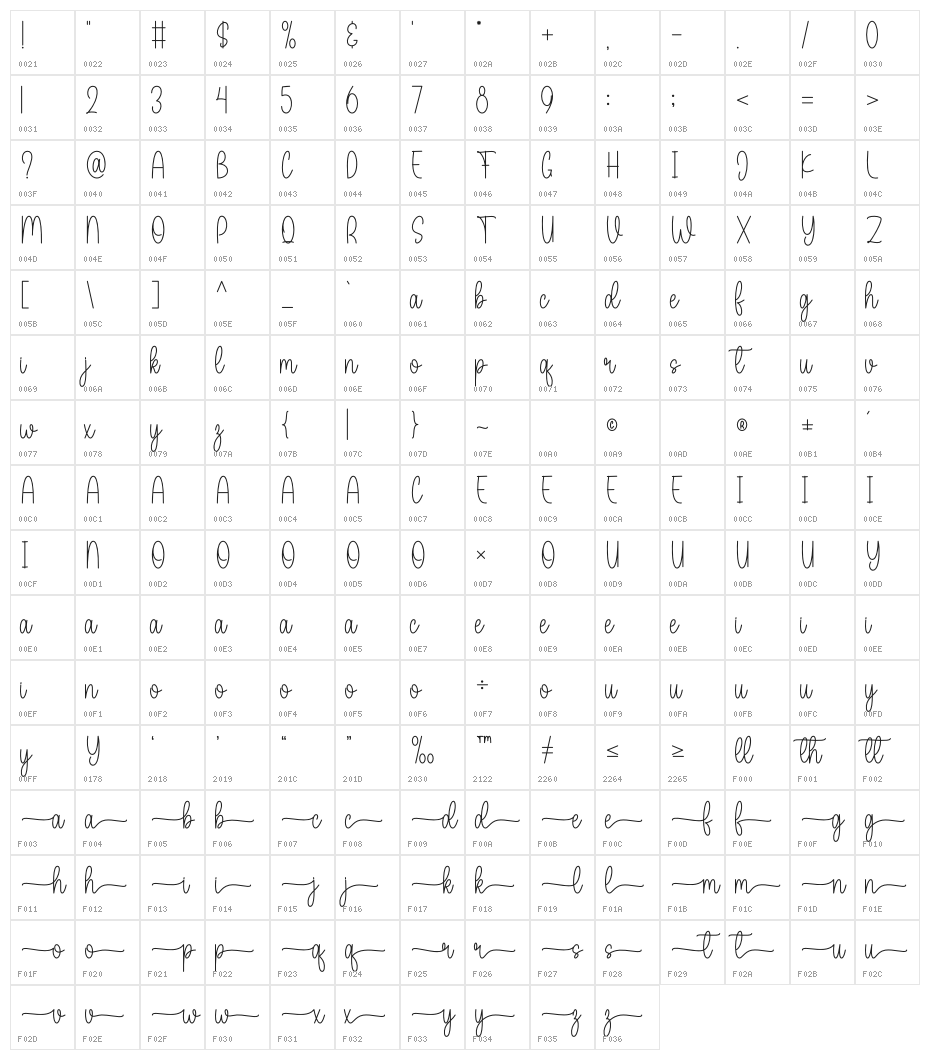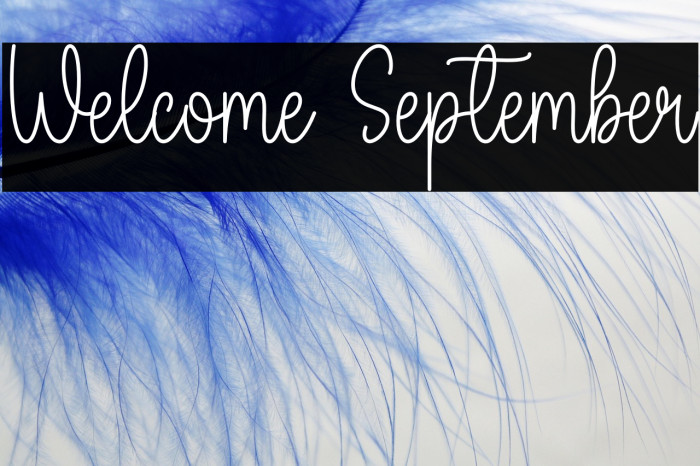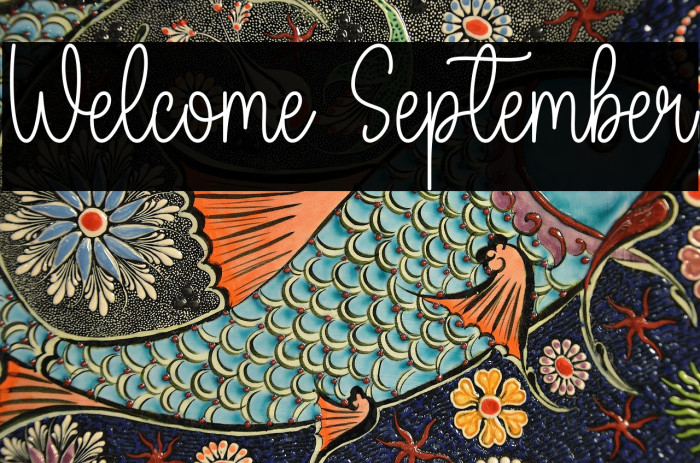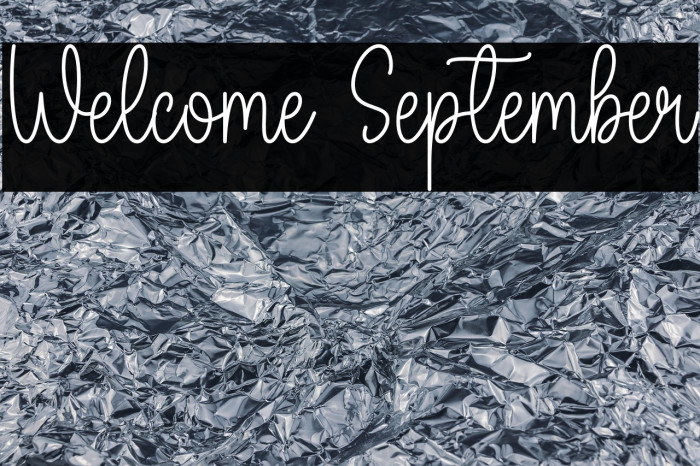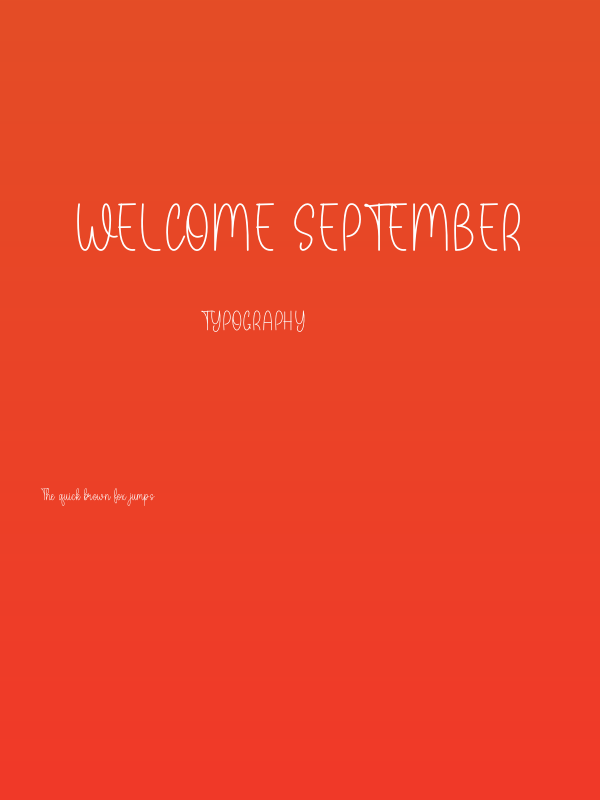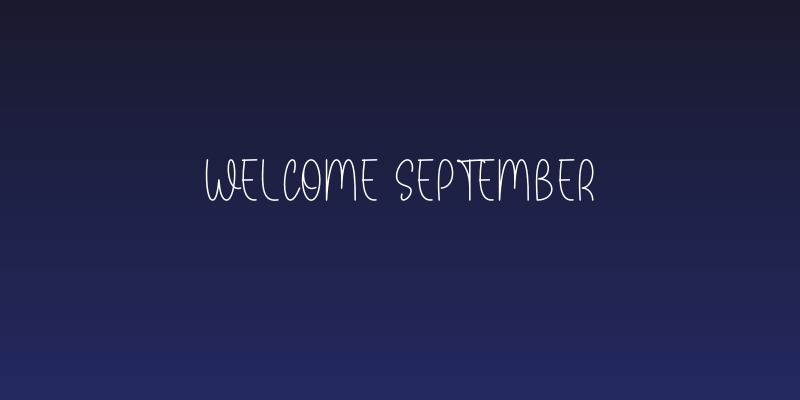
Welcome September Font
Welcome September Description
This font features a playful and whimsical handwritten style, characterized by its tall, narrow letters and smooth curves. The uppercase letters are elongated with a slight slant, giving a casual and friendly appearance. The lowercase letters maintain a consistent flow, with some characters exhibiting loops and curls that enhance its handwritten charm. The numerals are clean and straightforward, matching the overall aesthetic. Special characters are included, maintaining the same playful style. This font is ideal for projects that require a personal touch, such as greeting cards, invitations, or creative branding.
| Width | Condensed |
| Overall Style | Playful, Casual |
| Use Case | Headlines, Logos, Invitations |
| Proposed Projects | Ideal for greeting cards, invitations, creative branding, and personal projects. |